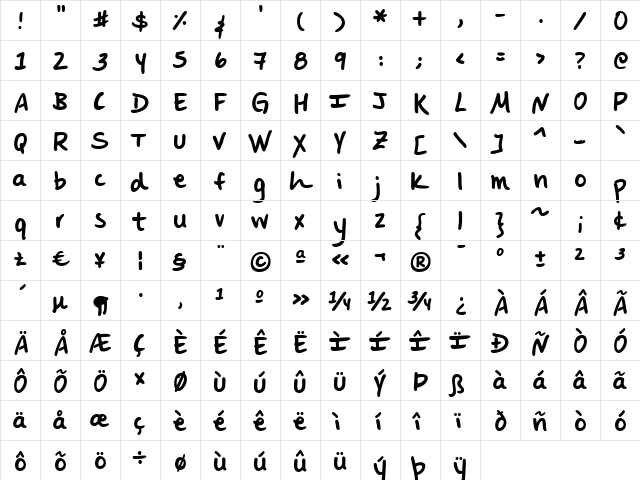
Martie Three Bold
Design Context for Martie Three Typeface
Martie Three is a composed and adaptable typeface that performs quietly and consistently across a wide range of design contexts. The heavy weight commands attention and anchors typographic hierarchies.